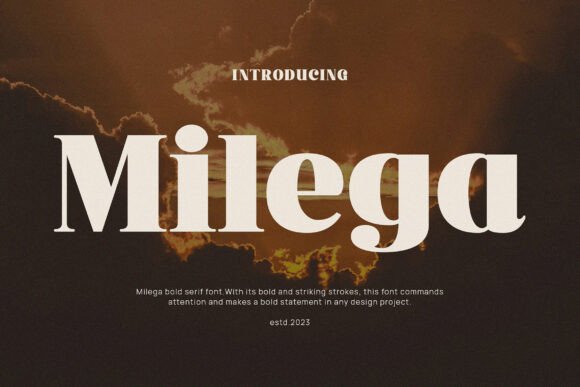
Milega Font: Elevate Your Brand with Timeless Elegance
In the world of typography, fonts play a crucial role in defining the aesthetic and tone of a brand. Among the numerous fonts available, Milega stands out as a stylish, luxurious serif font that exudes sophistication and timeless elegance. With its refined curves and sharp details, Milega is ideal for high-end branding, editorials, and packaging. In this article, we will explore the features, benefits, and applications of the Milega font, and how it can elevate your visual presentations with grace.
Introducing Milega Font
Milega is a serif font that embodies the perfect blend of classic structure and modern flair. Its design is characterized by refined curves and sharp details, which give it a distinctive and sophisticated look. The font’s classic structure is reminiscent of traditional serif fonts, while its modern flair adds a touch of elegance and refinement. This unique combination makes Milega an ideal choice for brands looking to create a distinguished presence in their visual presentations.
Key Features of Milega Font
- Refined Curves: Milega’s curves are meticulously designed to provide a smooth and luxurious feel, making it perfect for high-end branding and editorials.
- Sharp Details: The font’s sharp details add a touch of sophistication and elegance, making it ideal for packaging and visual presentations.
- Classic Structure: Milega’s classic structure provides a sense of tradition and timelessness, while its modern flair adds a touch of refinement.
- Distinguished Presence: The font’s unique combination of classic and modern elements creates a distinguished presence that elevates any visual presentation with grace.
Applications of Milega Font
Milega font is versatile and can be used in various applications, including:
- High-End Branding: Milega is ideal for luxury brands looking to create a sophisticated and elegant visual identity.
- Editorials: The font’s refined curves and sharp details make it perfect for editorials, such as fashion magazines and high-end publications.
- Packaging: Milega’s classic structure and modern flair make it an excellent choice for packaging design, particularly for luxury products.
- Visual Presentations: The font’s distinguished presence makes it ideal for visual presentations, such as advertisements, brochures, and business cards.
Benefits of Using Milega Font
Using Milega font offers several benefits, including:
- Enhanced Elegance: Milega’s refined curves and sharp details add a touch of elegance and sophistication to any visual presentation.
- Increased Legibility: The font’s classic structure and modern flair make it highly legible, even at small sizes.
- Versatility: Milega is a versatile font that can be used in various applications, from high-end branding to packaging design.
- Timeless Appeal: The font’s classic structure and modern flair give it a timeless appeal that won’t go out of style.
Tips for Using Milega Font
To get the most out of Milega font, follow these tips:
- Use it sparingly: Milega is a luxurious font, so use it sparingly to create a greater impact.
- Pair it with neutral fonts: Pair Milega with neutral fonts to create a balanced and harmonious visual presentation.
- Experiment with sizes: Experiment with different sizes to create visual hierarchy and add emphasis to important elements.
- Pay attention to spacing: Pay attention to spacing and kerning to ensure that the font looks elegant and refined.
Milega font is a stylish, luxurious serif font that exudes sophistication and timeless elegance. With its refined curves and sharp details, it’s ideal for high-end branding, editorials, and packaging. The font’s classic structure paired with modern flair creates a distinguished presence that elevates any visual presentation with grace. By understanding the features, benefits, and applications of Milega font, designers and brands can create stunning visual presentations that leave a lasting impression.
- What is Milega font? Milega is a stylish, luxurious serif font that exudes sophistication and timeless elegance.
- What is Milega font used for? Milega font is ideal for high-end branding, editorials, packaging, and visual presentations.
- Is Milega font legible? Yes, Milega font is highly legible, even at small sizes.